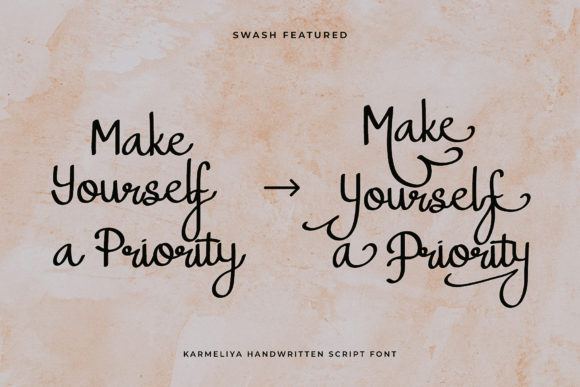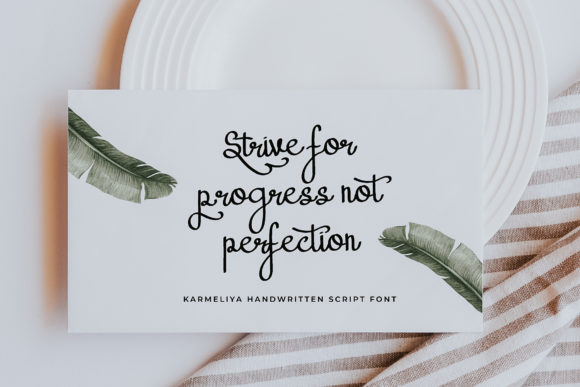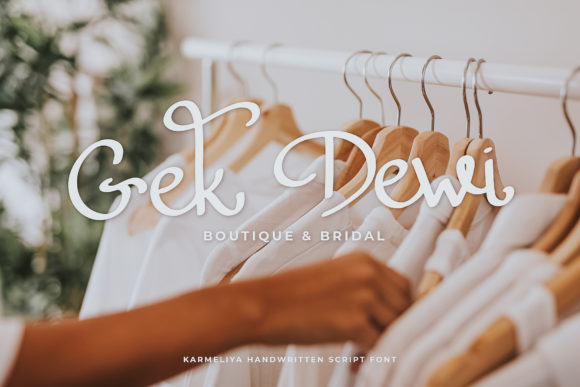
Introduction to Karmeliya Font
As a designer, there’s nothing quite like the thrill of discovering a new font that perfectly captures the essence of your creative vision. It’s that moment when the words start flowing, and your imagination runs wild with possibilities. For me, that moment came when I stumbled upon the stunning Karmeliya Font. This elegant handwritten script font is a true gem, offering a level of sophistication and style that’s hard to resist.
With its beautiful and unique design, Karmeliya Font is the perfect choice for designers looking to add a touch of high-quality elegance to their creative projects. Whether you’re working on a logo, label, wedding invitation, or album cover, this font is sure to make your design stand out from the crowd. And with its transparent background and PUA encoding, you’ll have access to all the glyphs and swashes you need to create something truly special.
Key Features of Karmeliya Font
- High-quality, professional design for creative projects
- Medium to large font size, ideal for headings and titles in creative projects
- High-resolution design, suitable for print and digital applications
- Unique, elegant style that adds a touch of sophistication to any design
Honest Review: Karmeliya Font
I recently stumbled upon the Karmeliya Font, and I must say it’s a great addition to any designer’s toolkit. The font’s high quality and versatility make it a fantastic design resource for various creative projects.
- Highly legible, making it perfect for body text and headings.
- Features a transparent background, allowing for seamless integration with any design.
- Supports a wide range of languages, making it a great choice for international projects.
While the Karmeliya Font is a great addition to any designer’s toolkit, there are a few limitations to consider:
- The font may not be suitable for use in logos or branding due to its relatively simple design.
- Some users may find the font’s transparency feature to be a bit finicky to work with.
Overall, I’m impressed with the Karmeliya Font and would recommend it to any designer looking for a high-quality, versatile font for their next creative project.
How to Use Karmeliya Font
To get the most out of the Karmeliya Font, use it in combination with other design elements to create a visually appealing design. You can also use the font in different sizes and colors to add depth and interest to your design. Additionally, use a transparent background to make your design stand out.
The Karmeliya Font is suitable for a variety of creative projects, including logos, business cards, brochures, and website designs. It’s also a great choice for designers who want to create a high-quality and professional-looking design with a free download font.